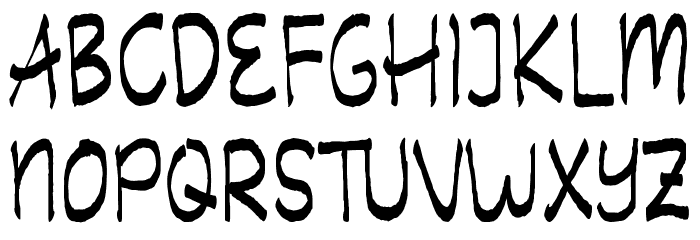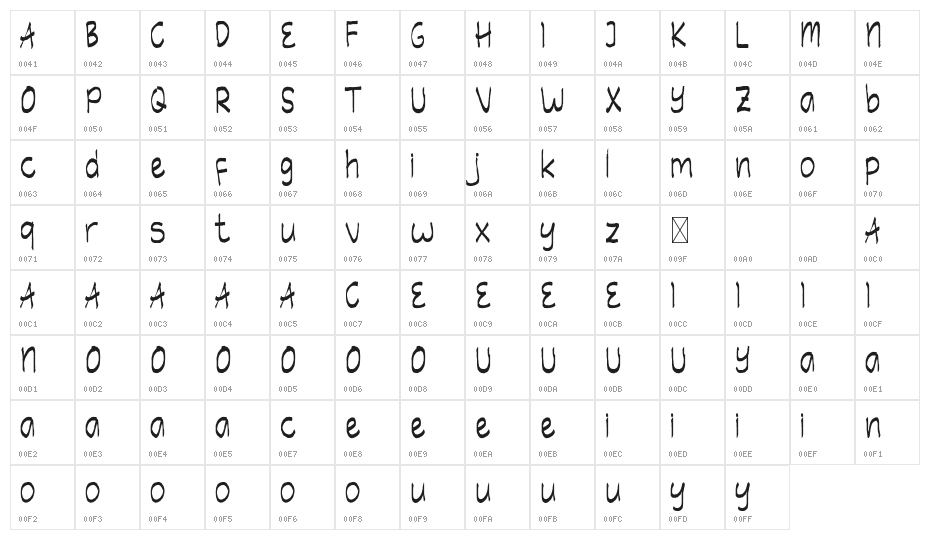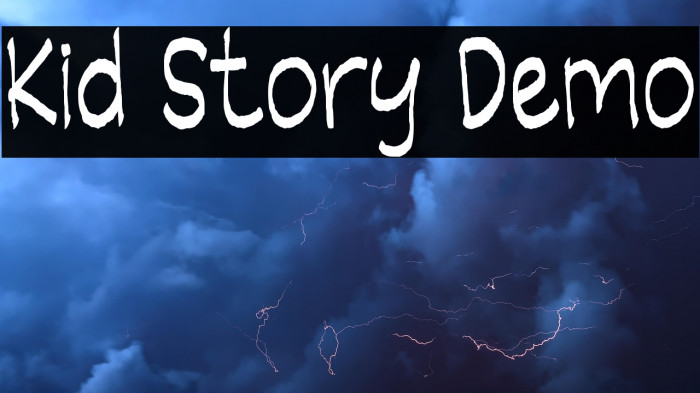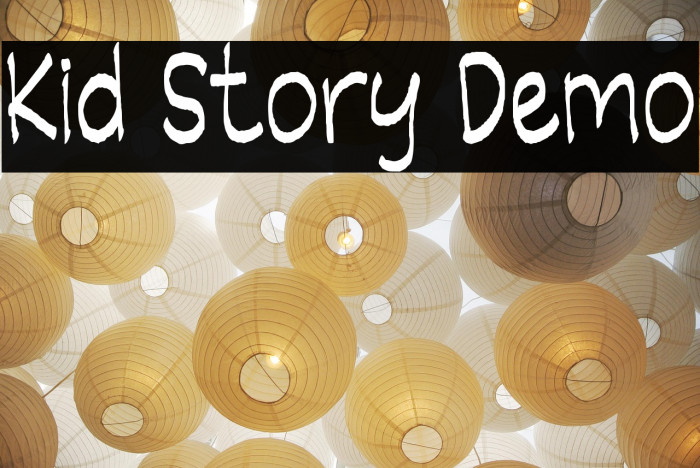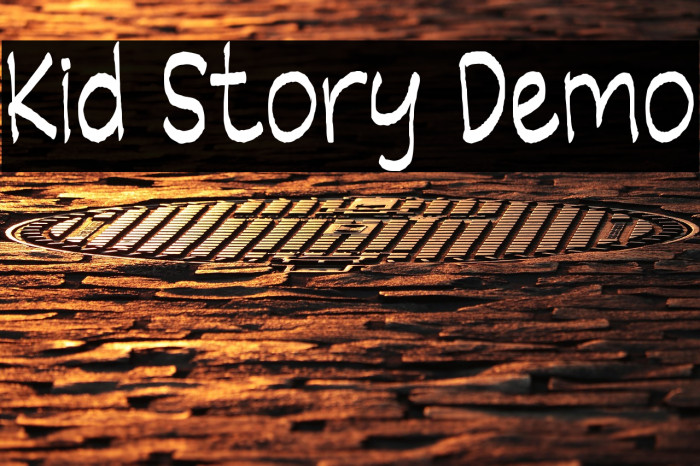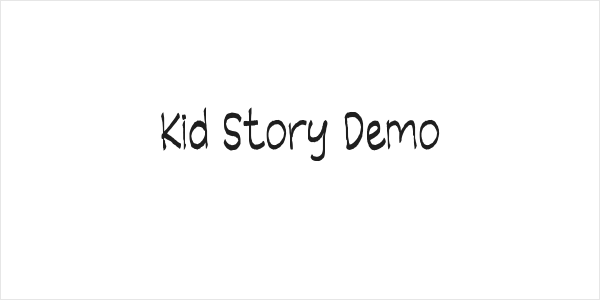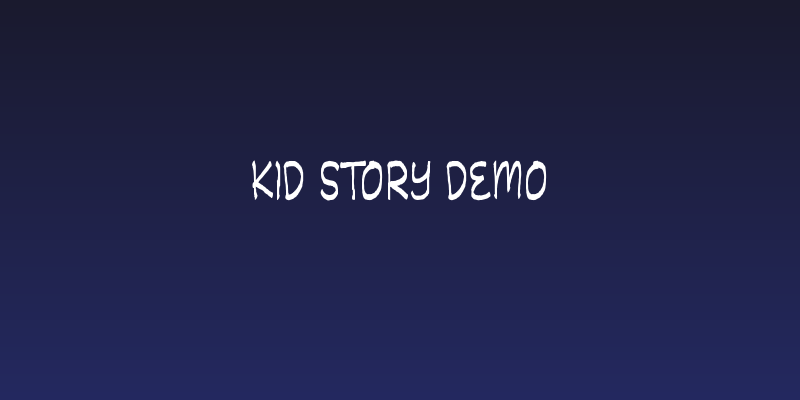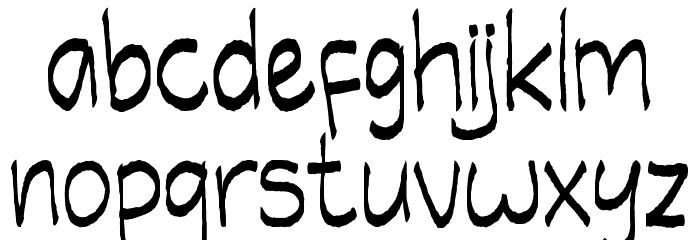
Kid Story Demo Font
Kid Story Demo Description
This font exhibits a playful and whimsical style, reminiscent of children's handwriting. The characters are slightly irregular, adding a charming and informal touch. The strokes are uneven, with a hand-drawn quality that gives it a unique personality. The uppercase and lowercase letters maintain a consistent style, with rounded edges and a casual flow. The numerals and special characters follow the same playful aesthetic, making this font ideal for projects that require a friendly and approachable look.
| Use Case | Headlines, Logos, Children's materials |
| Proposed Projects | Ideal for children's books, educational materials, playful branding, and creative projects that require a friendly and informal touch. |